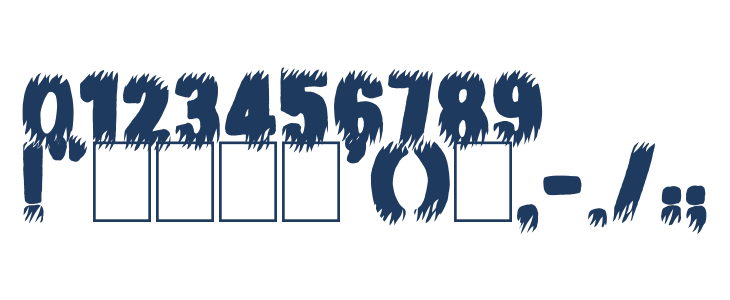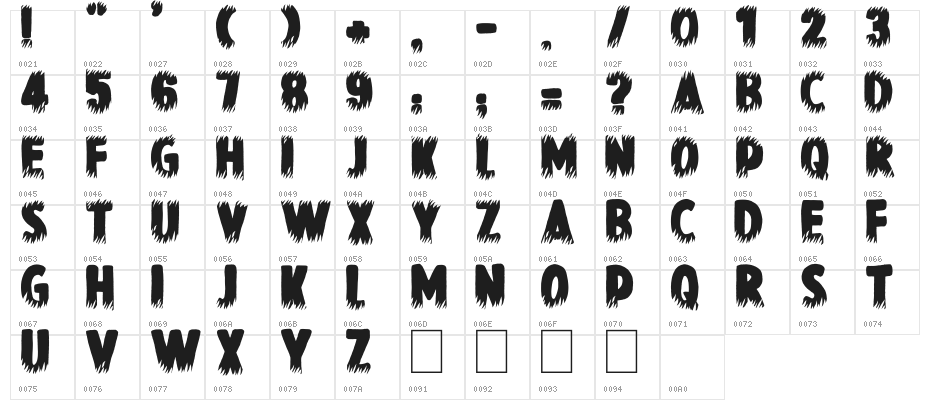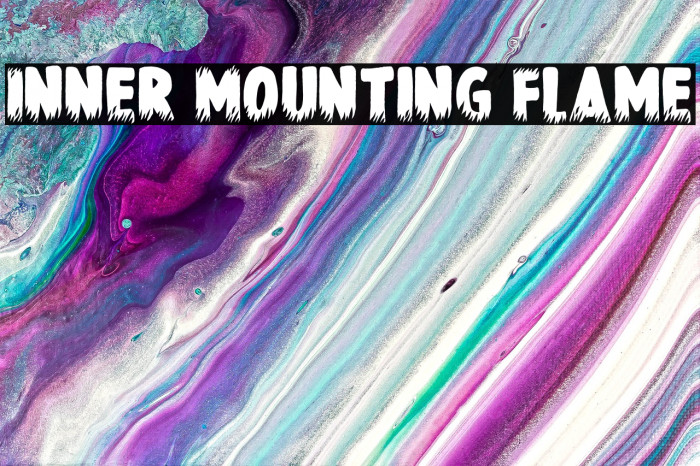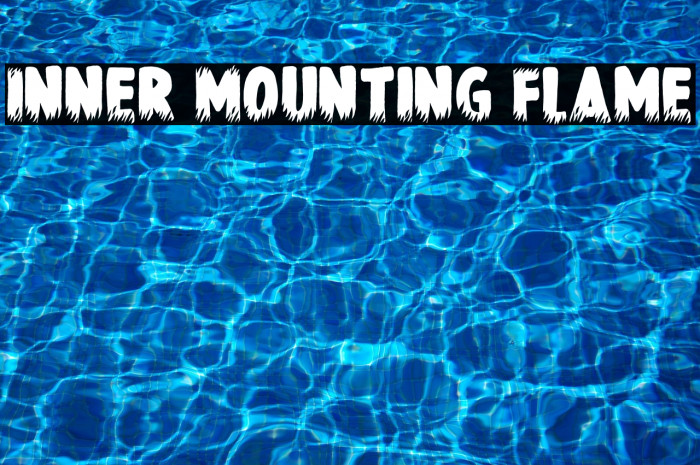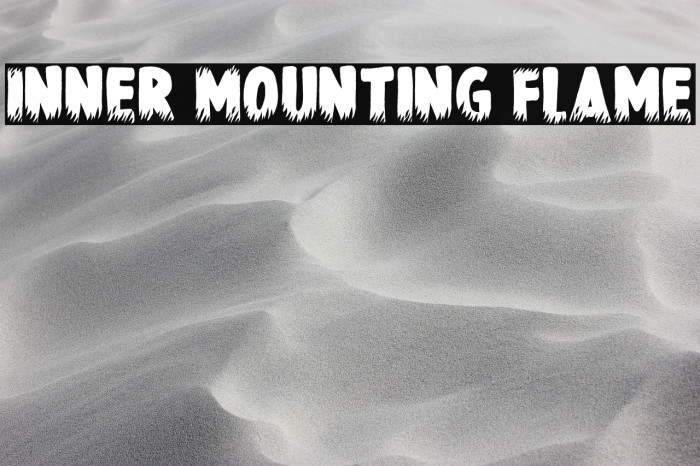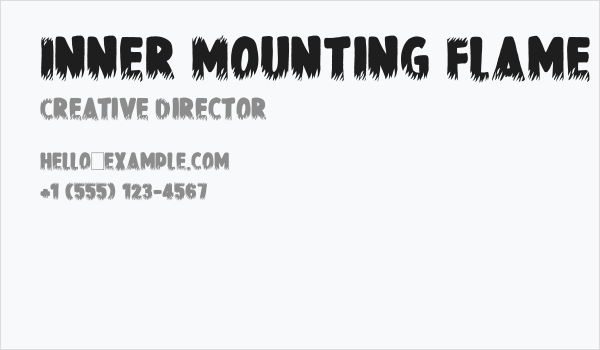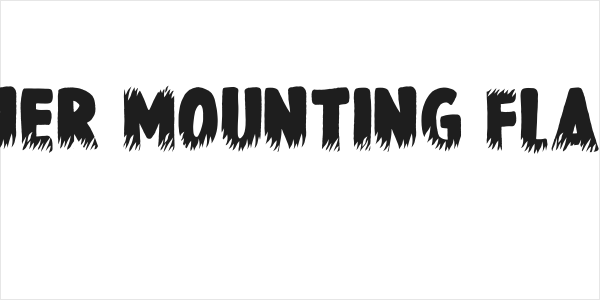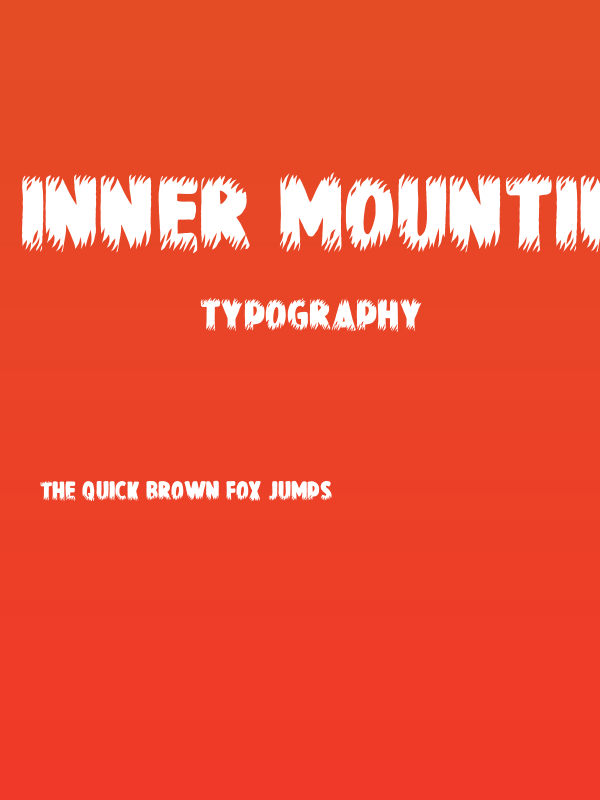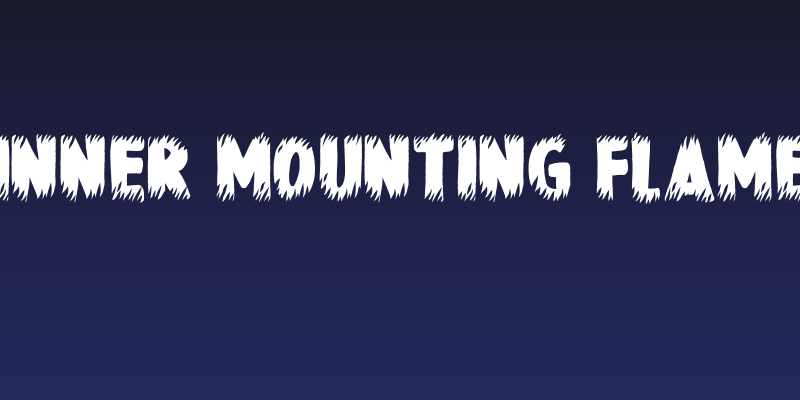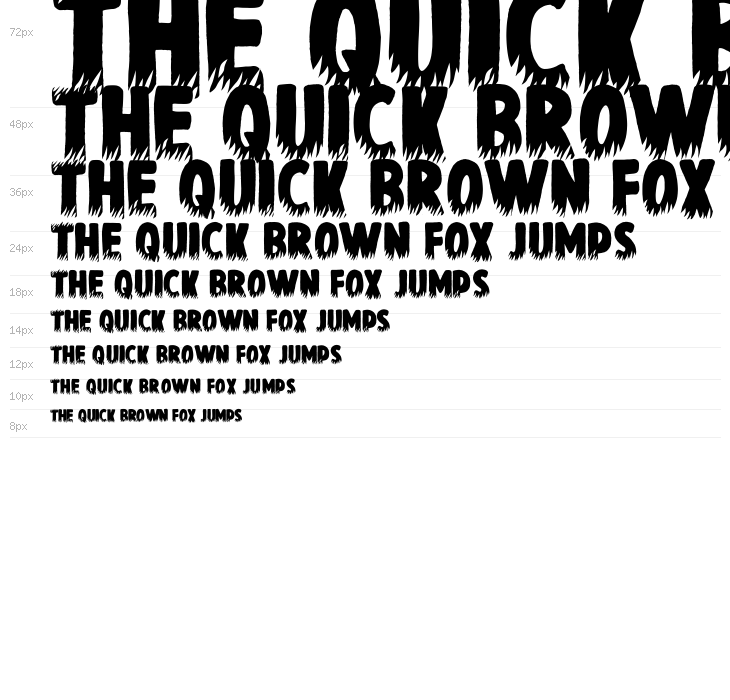
Inner Mounting Flame Font
| Progetti proposti | Ideal for use in posters, album covers, event flyers, and any design requiring a bold, fiery aesthetic. |
Inner Mounting Flame